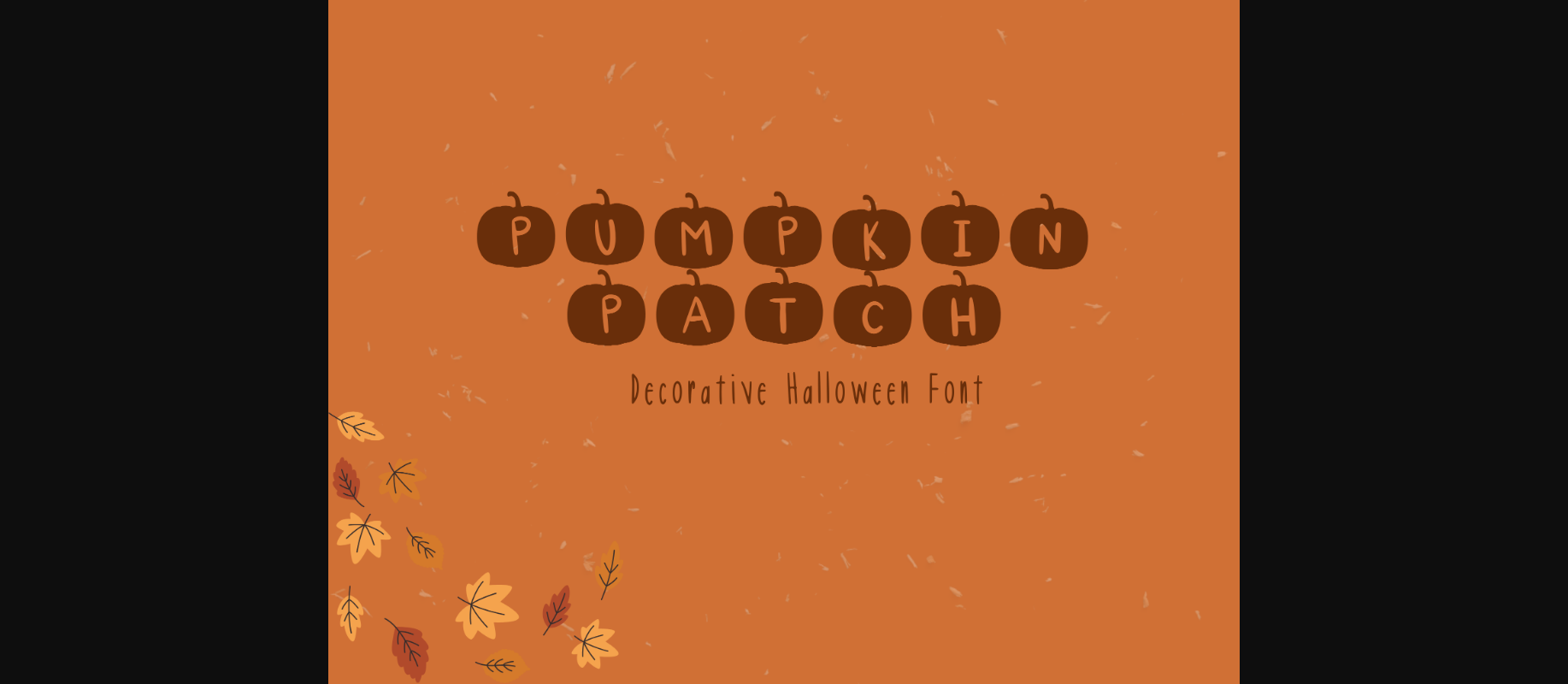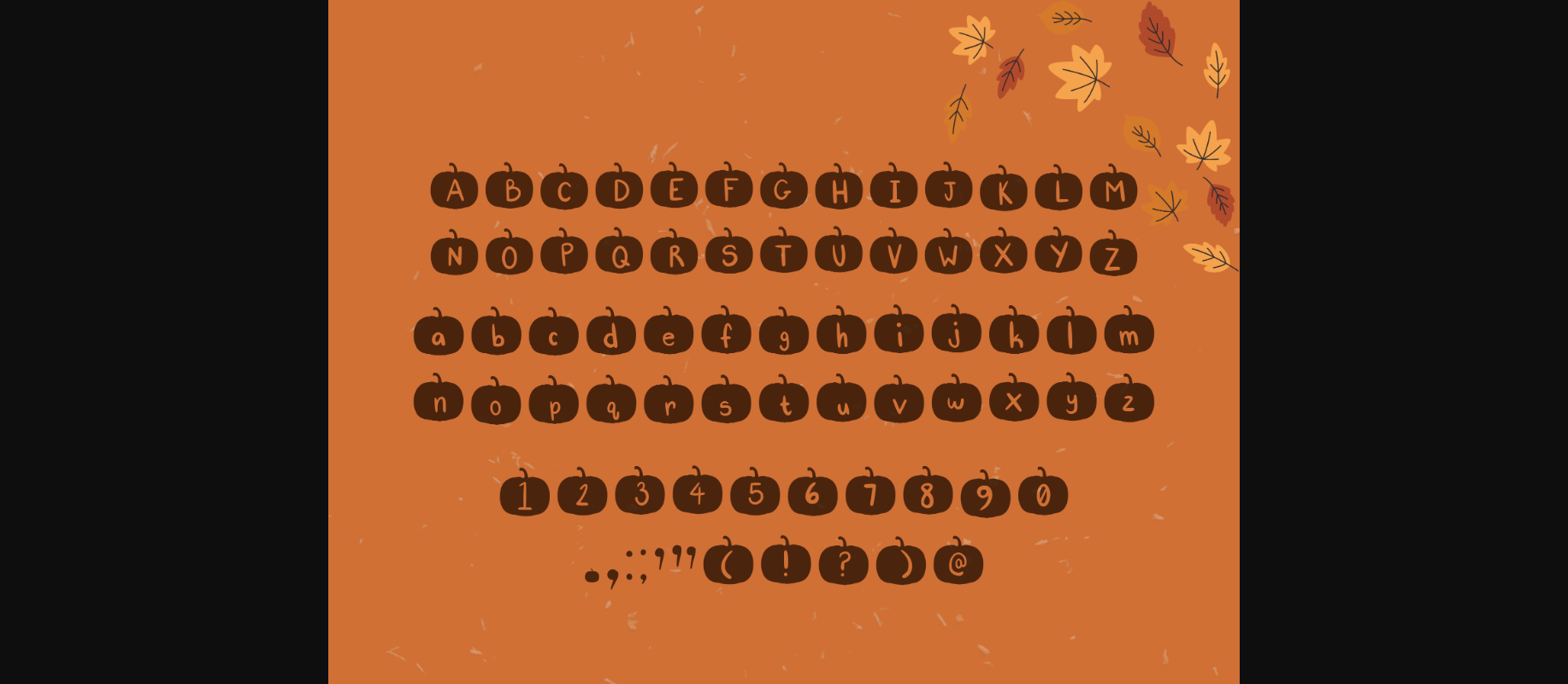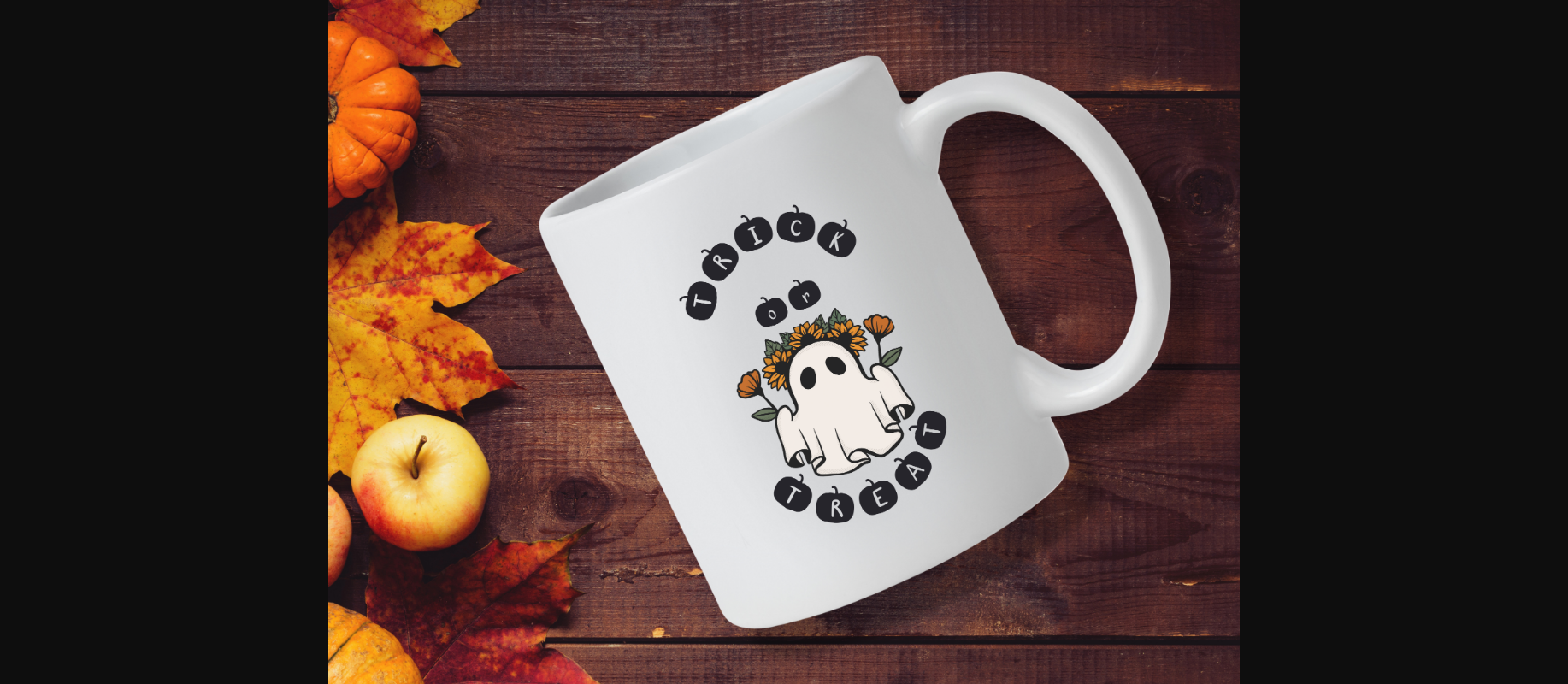
Pumpkin Patch Font
About Pumpkin Patch Font
Pumpkin Patch is a handcrafted pumpkin decorative font! Designed to be a standout addition to your Halloween or Autumn-inspired collection, this font exudes an air of both eerie mystique and playful charm, making it an ideal choice for a myriad of creative projects.